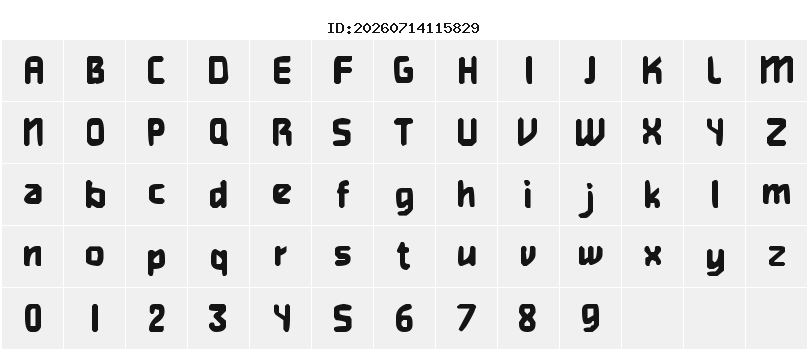
Heavy Weight Gamer Preview
• Description: made by extermin8tor
About Heavy Weight Gamer.ttf
Heavy Weight Gamer.ttf is a modern, elegant sans-serif font designed for ultimate readability and visual harmony. Perfect for branding, headlines, web design, and print materials.